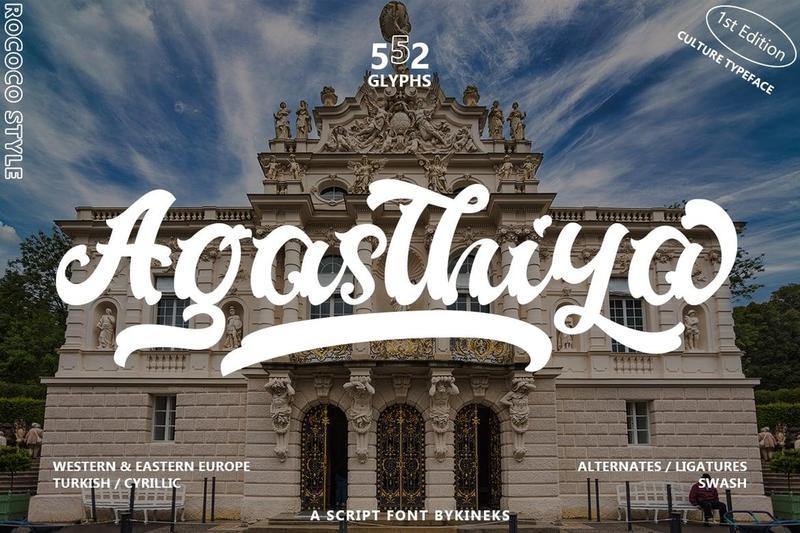
**Agasthiya Rococo Ornamental Script Typeface**
**Agasthiya Rococo** is a decorative script typeface inspired by the **ornamental elegance of Rococo architecture** from 18th-century Paris. Just like the intricate and layered details of Rococo art, this font carries a sense of luxury, sophistication, and flourishperfect for designs that require a touch of classical refinement.
With **552 glyphs**, Agasthiya Rococo provides extensive typographic flexibility, including alternates, ligatures, and swashes that allow designers to craft unique, elegant compositions. The typeface supports **Western & Eastern European, Turkish, and Cyrillic** languages, making it versatile for global design projects.
**Key Features:**
– 552 glyphs with rich typographic features
– Alternates, ligatures, and decorative swashes
– Supports Western & Eastern European, Turkish, and Cyrillic scripts
– Inspired by Rococo architecture & Victorian-style elegance
– Perfect for both modern and classical design needs
Agasthiya Rococo is the ultimate choice for designers who want to combine historic charm with modern usability, bringing the spirit of Rococo ornamentation into contemporary design.